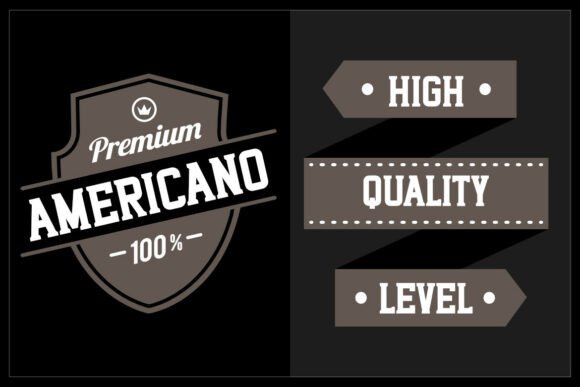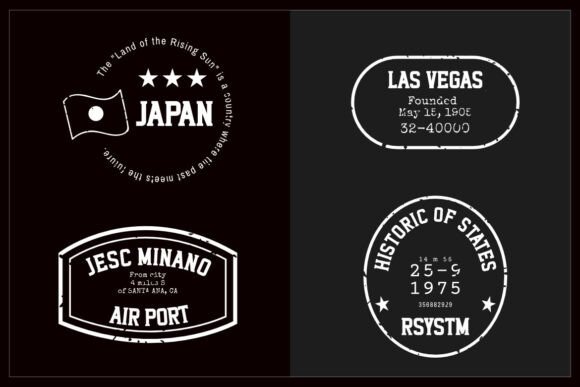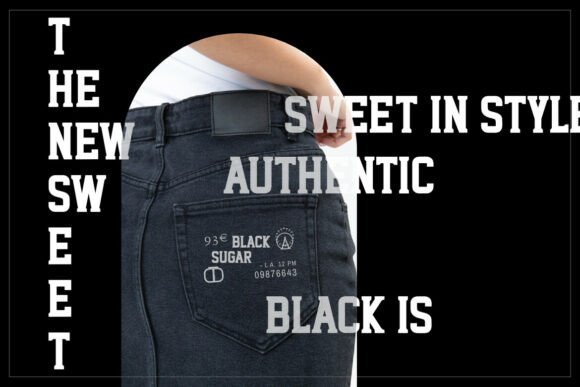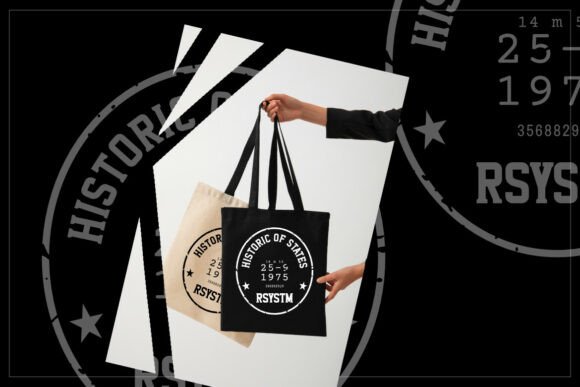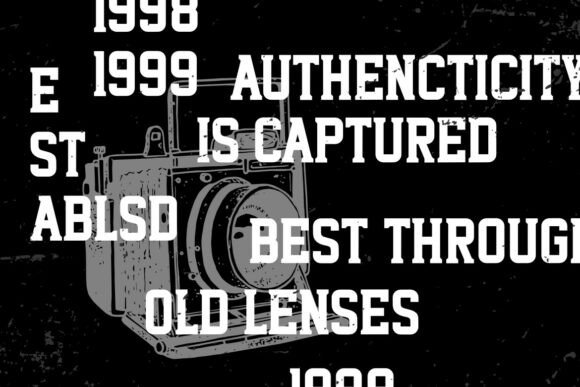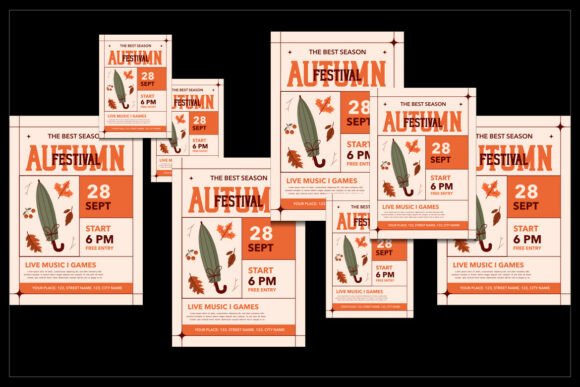
Introducing Belano Dampod Slab Serif Typeface Font: A Bold and Versatile Design Essential
In the world of typography, a font can make all the difference in the success of a design project. For designers and crafters seeking a typeface that exudes both modern strength and timeless elegance, look no further than the Belano Dampod Slab Serif Typeface Font. This bold and versatile slab serif font is designed to deliver clarity, stability, and impact, making it perfect for designs that demand authority and personality.
Key Characteristics of Belano Dampod Slab Serif Typeface Font
Belano Dampod Slab Serif Typeface Font boasts solid letterforms and a geometric balance that gives it a professional yet approachable character. Its clean slab serifs and strong structure make it suitable for both classic and contemporary design projects. The font’s unique blend of modernity and sophistication ensures that your message stands out with confidence.
Design Applications for Belano Dampod Slab Serif Typeface Font
With its impressive range of applications, Belano Dampod Slab Serif Typeface Font is an excellent addition to any designer’s toolkit. Here are some of the areas where this font truly shines:
- Logos & Branding: Create a lasting impression with a bold and memorable logo that showcases your brand’s personality.
- Editorial & Magazine Design: Add a touch of sophistication and elegance to your editorial layouts and magazine designs.
- Apparel & Merchandise: Make a statement with eye-catching apparel and merchandise that feature bold and stylish typography.
- Labels & Packaging: Stand out on store shelves with packaging that exudes confidence and professionalism.
- Social Media Graphics: Elevate your social media presence with graphics that feature clean and modern typography.
- Poster & Flyers: Create striking posters and flyers that grab attention and leave a lasting impression.
Why Choose Belano Dampod Slab Serif Typeface Font?
Belano Dampod Slab Serif Typeface Font offers a unique combination of characteristics that make it an excellent choice for designers and crafters. Here are just a few reasons why:
- Versatility: This font is suitable for a wide range of design projects, from classic and traditional to modern and contemporary.
- Legibility: The clean slab serifs and strong structure of Belano Dampod ensure that your message is conveyed with clarity and precision.
- Impact: The bold and confident character of this font makes it perfect for designs that demand attention and authority.
- Elegance: The timeless elegance of Belano Dampod adds a touch of sophistication to any design project.
Tips for Using Belano Dampod Slab Serif Typeface Font
To get the most out of Belano Dampod Slab Serif Typeface Font, here are a few tips to keep in mind:
- Experiment with font sizes: Belano Dampod works well in a variety of font sizes, from large headlines to smaller body text.
- Play with color: The bold character of this font makes it perfect for use with a range of colors and design styles.
- Mix and match: Combine Belano Dampod with other fonts to create a unique and eye-catching design.
In conclusion, Belano Dampod Slab Serif Typeface Font is a bold and versatile design essential that is perfect for designers and crafters seeking a typeface that exudes modern strength and timeless elegance. With its clean slab serifs, strong structure, and professional yet approachable character, this font is suitable for a wide range of design projects. Whether you’re working on logos and branding, editorial and magazine design, or apparel and merchandise, Belano Dampod is sure to deliver clarity, stability, and impact.